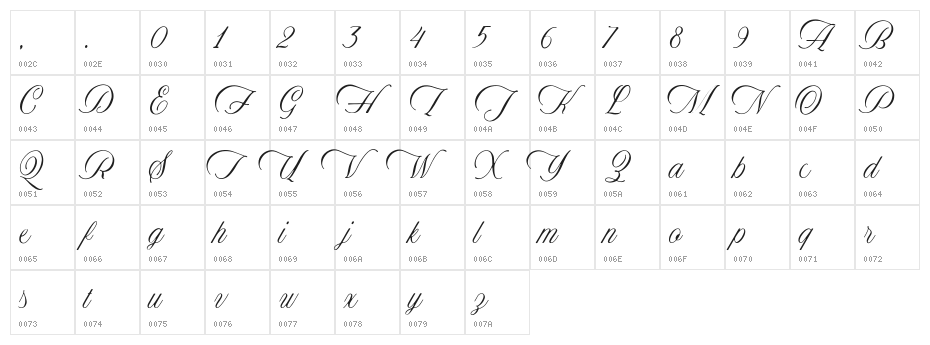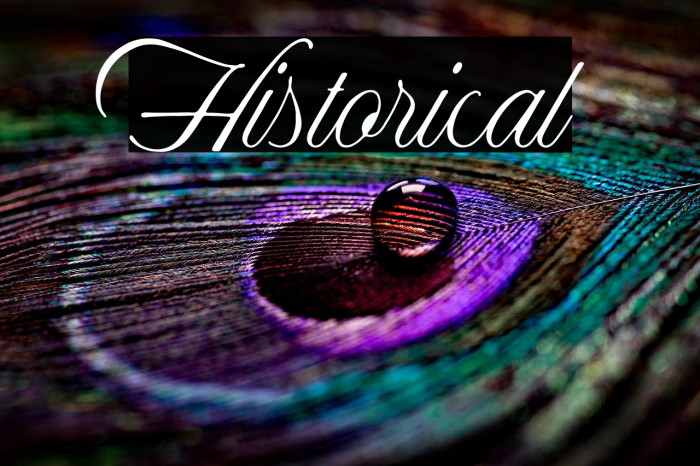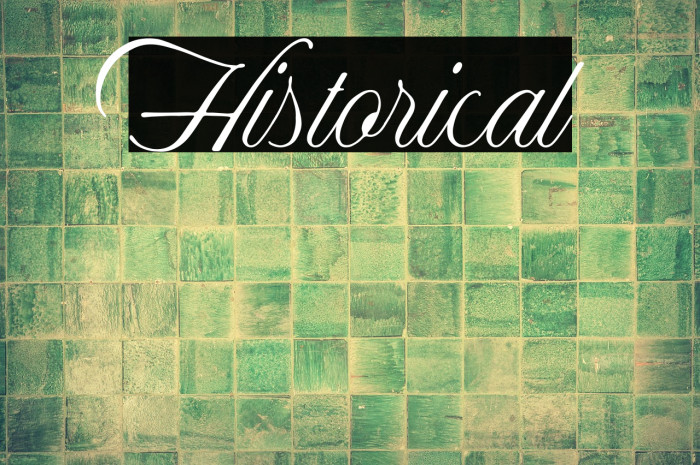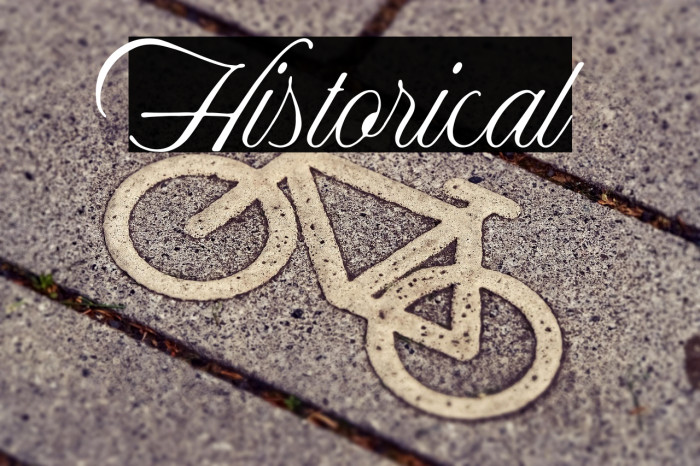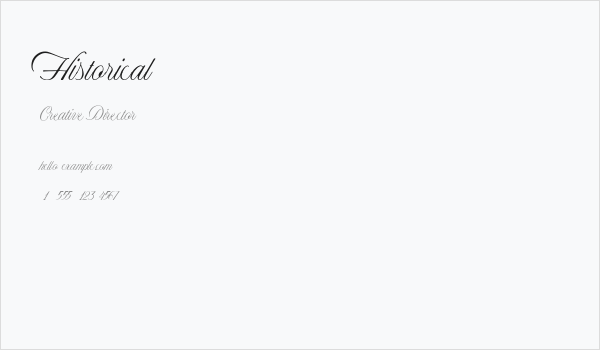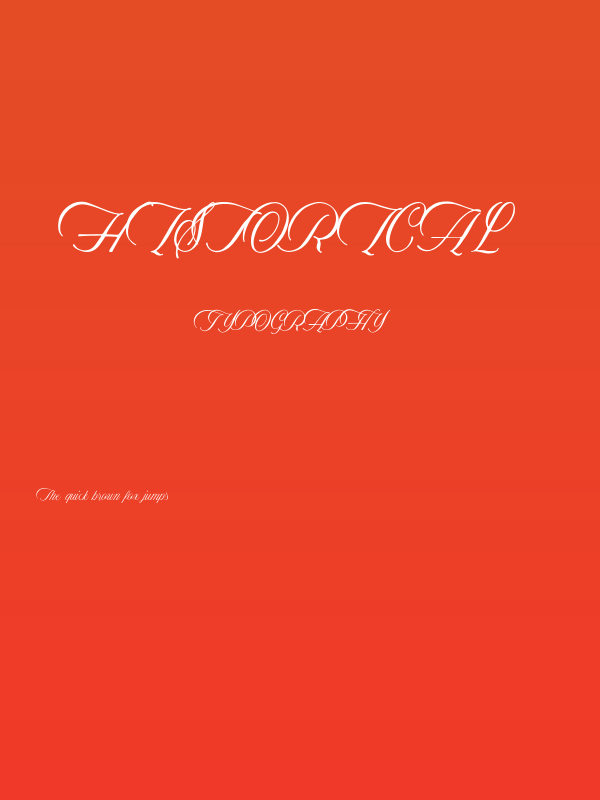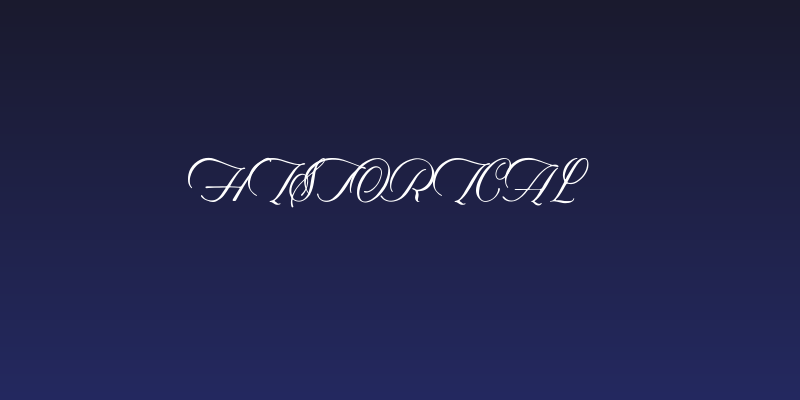
Historical Font
Historical Description
This elegant script font features a flowing, cursive style with intricate loops and flourishes. The uppercase letters are particularly ornate, with sweeping lines that extend beyond the baseline and cap height, giving a sense of movement and grace. The lowercase letters maintain a consistent slant, enhancing the cursive effect, while the numerals are clear and stylish, matching the overall aesthetic. The special characters are designed with similar flourishes, ensuring a cohesive look across all glyphs. This font exudes a sense of sophistication and is reminiscent of traditional calligraphy, making it suitable for formal and decorative applications.
| Use Case | Headlines, Invitations, Branding |
| Proposed Projects | Ideal for wedding invitations, formal event programs, elegant branding, and decorative certificates. |